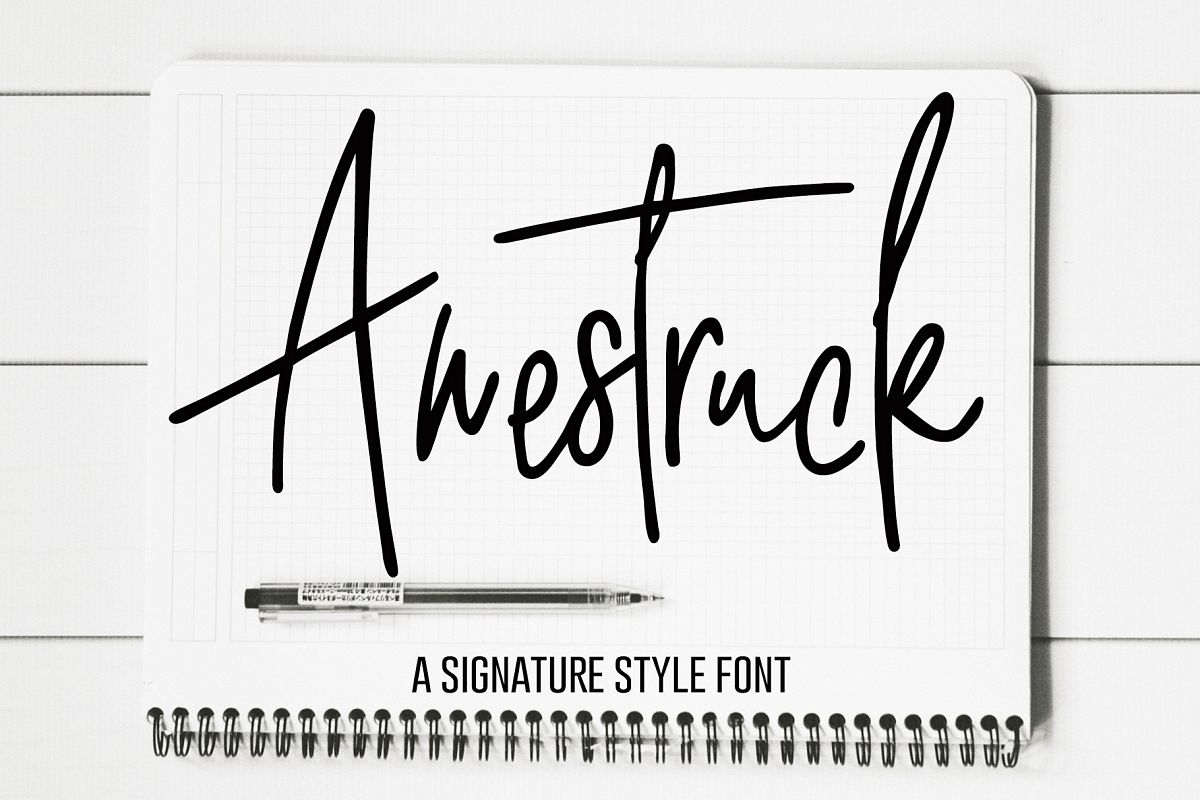
Awestruck Signature Style Font
Awestruck!
This unique signature style font will add a quick, handwritten touch to your logos, designs, ads, social media posts, and more!
There are 19 ligatures included in this font to give it a more hand written feel.
- mm, at, bu, ee, eu, ey, ll, oo, pi, sb, sh, sk, sp, ss, st, sw, sy, tt